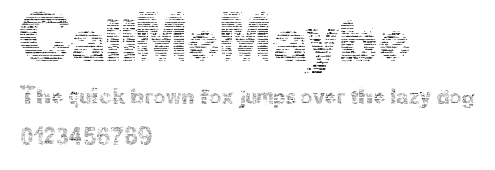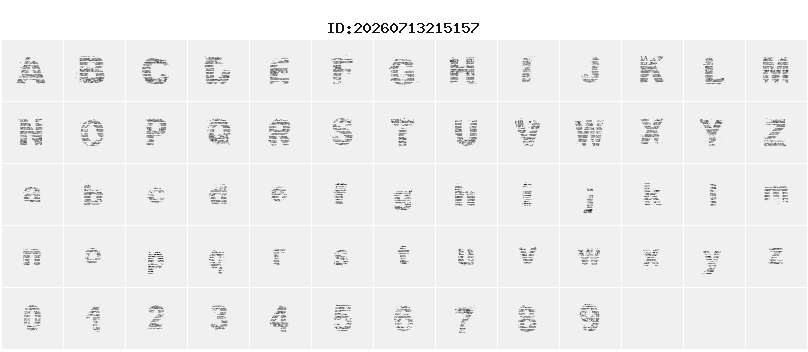
CallMeMaybe Preview
• Font Name: CallMeMaybe
• Full Font Name: CallMeMaybe
• Version: Version 1.00 September 5, 2012, initial release
About CallMeMaybe.ttf
CallMeMaybe.ttf is a modern, elegant sans-serif font designed for ultimate readability and visual harmony. Perfect for branding, headlines, web design, and print materials.